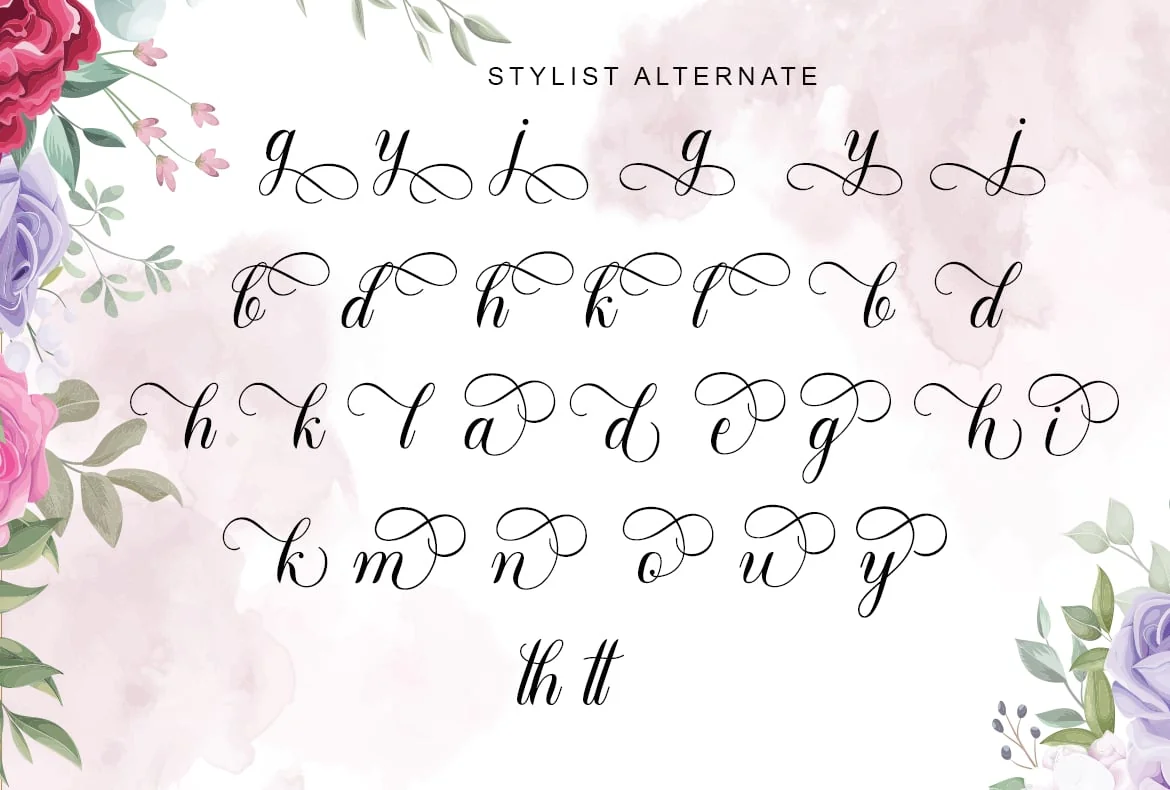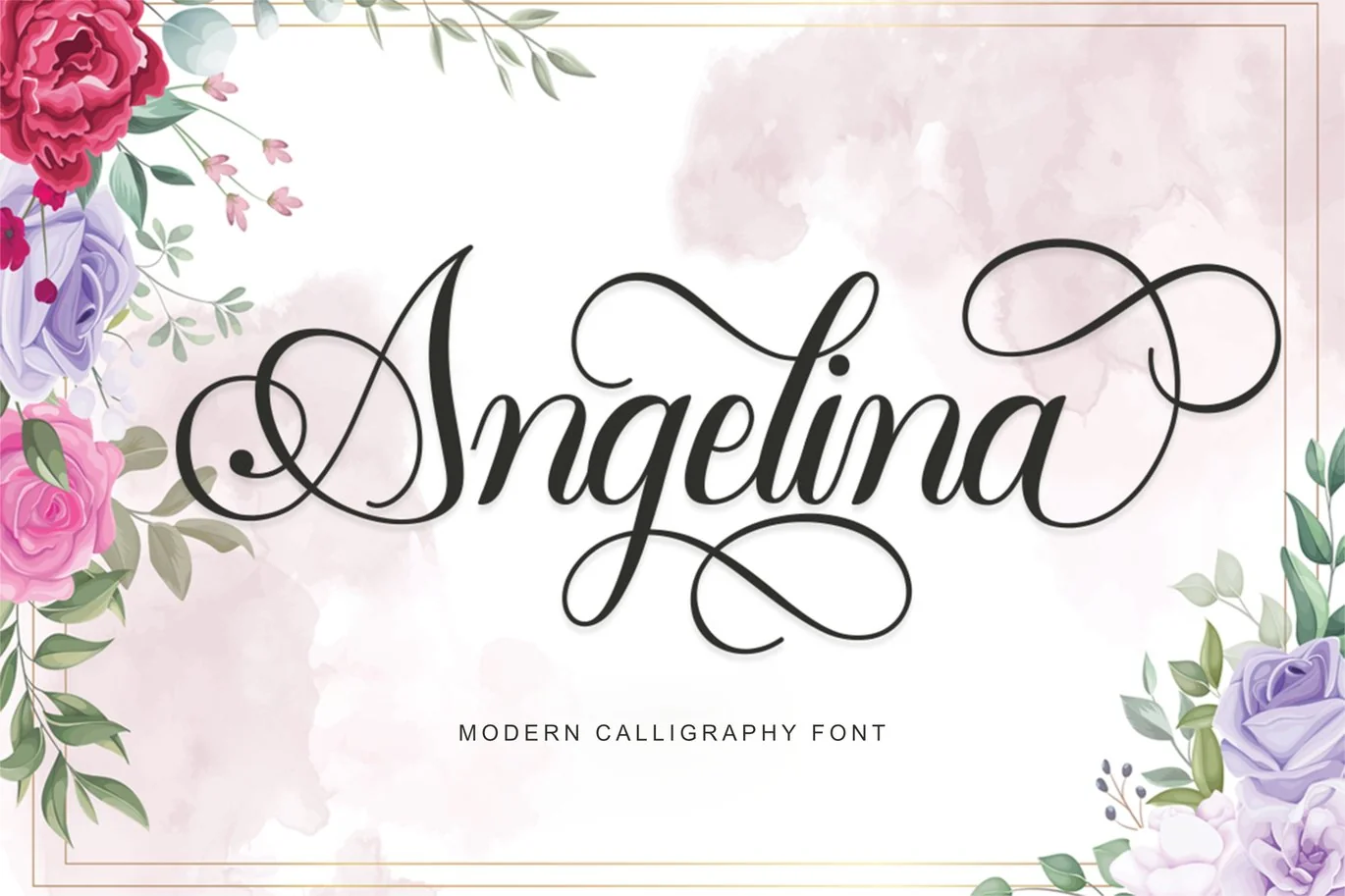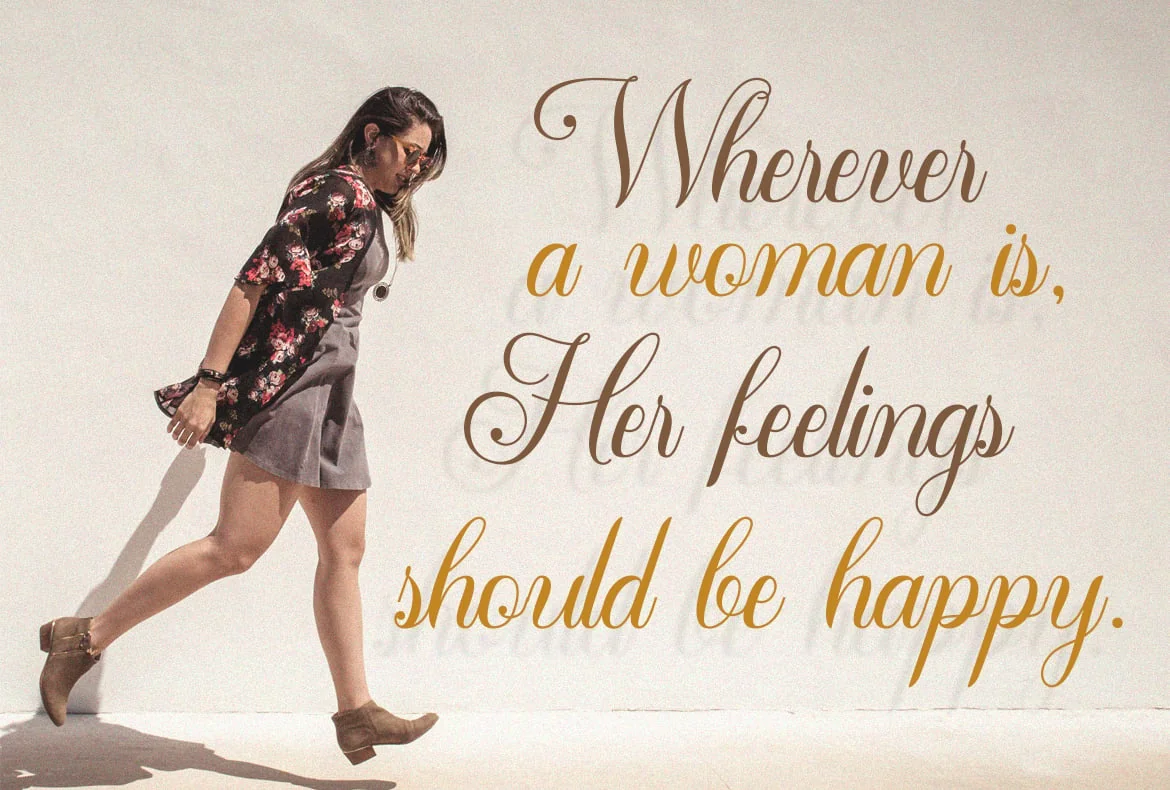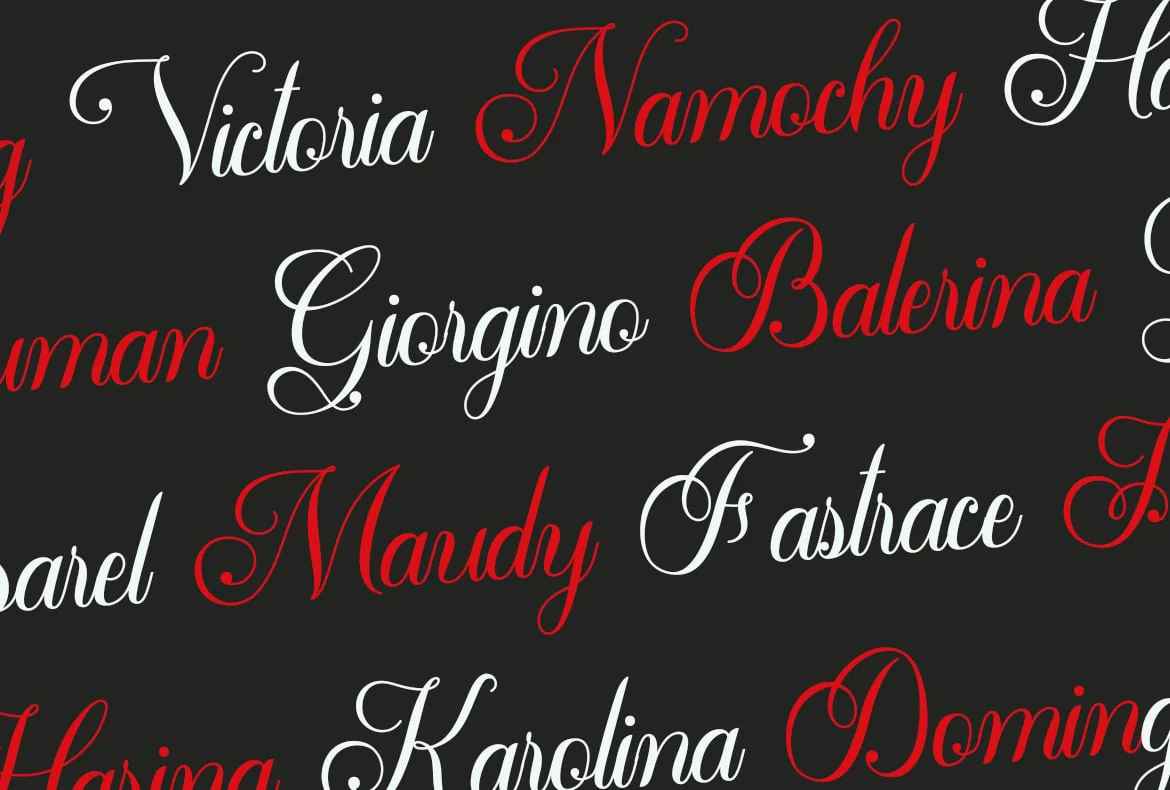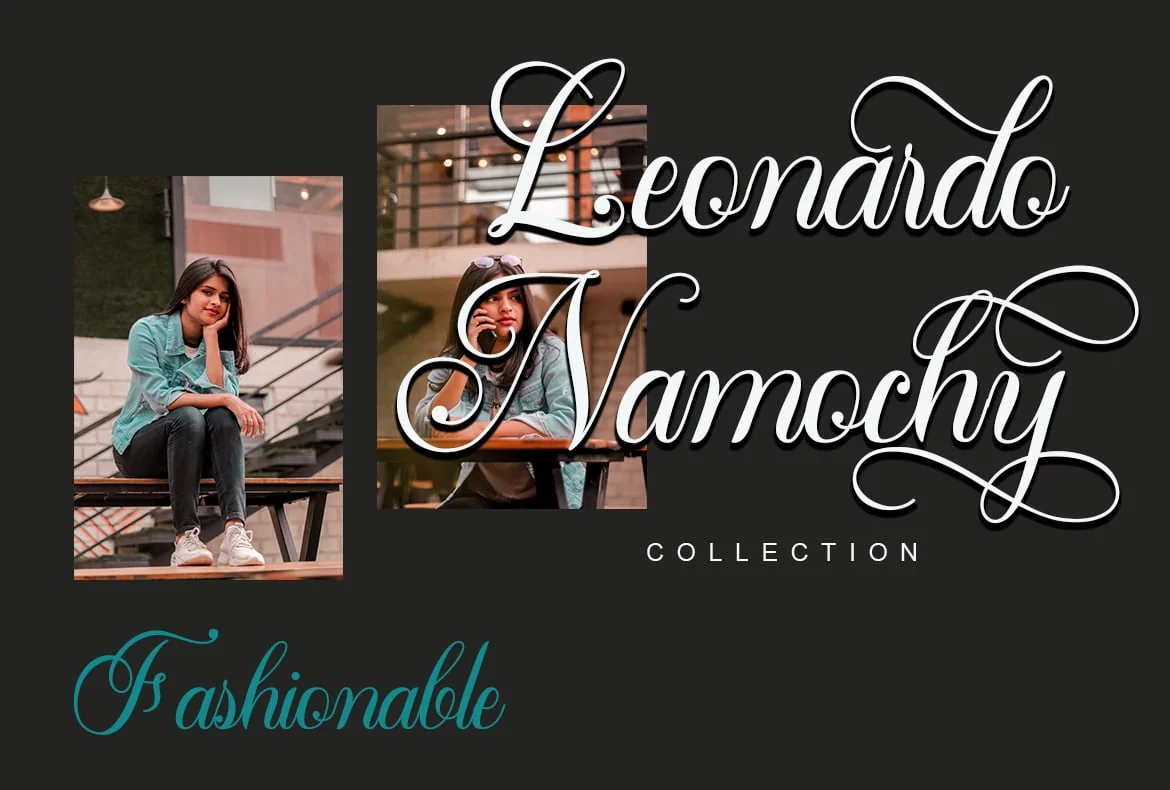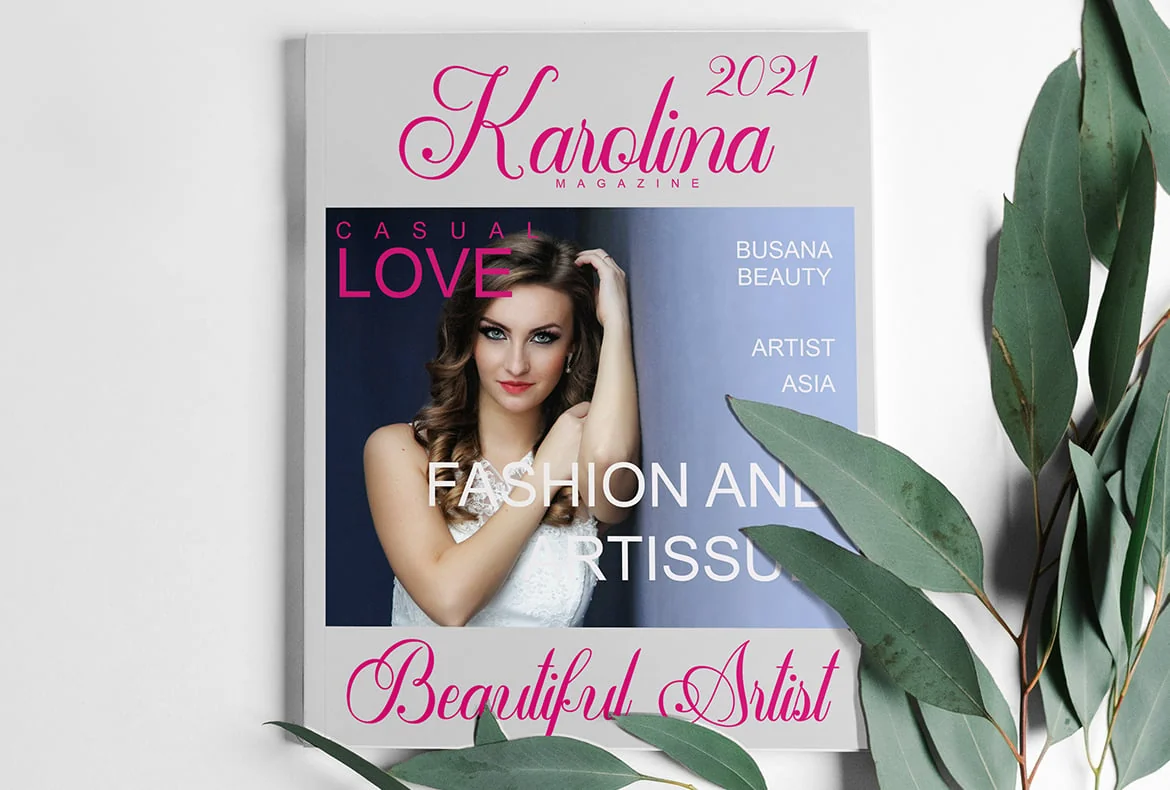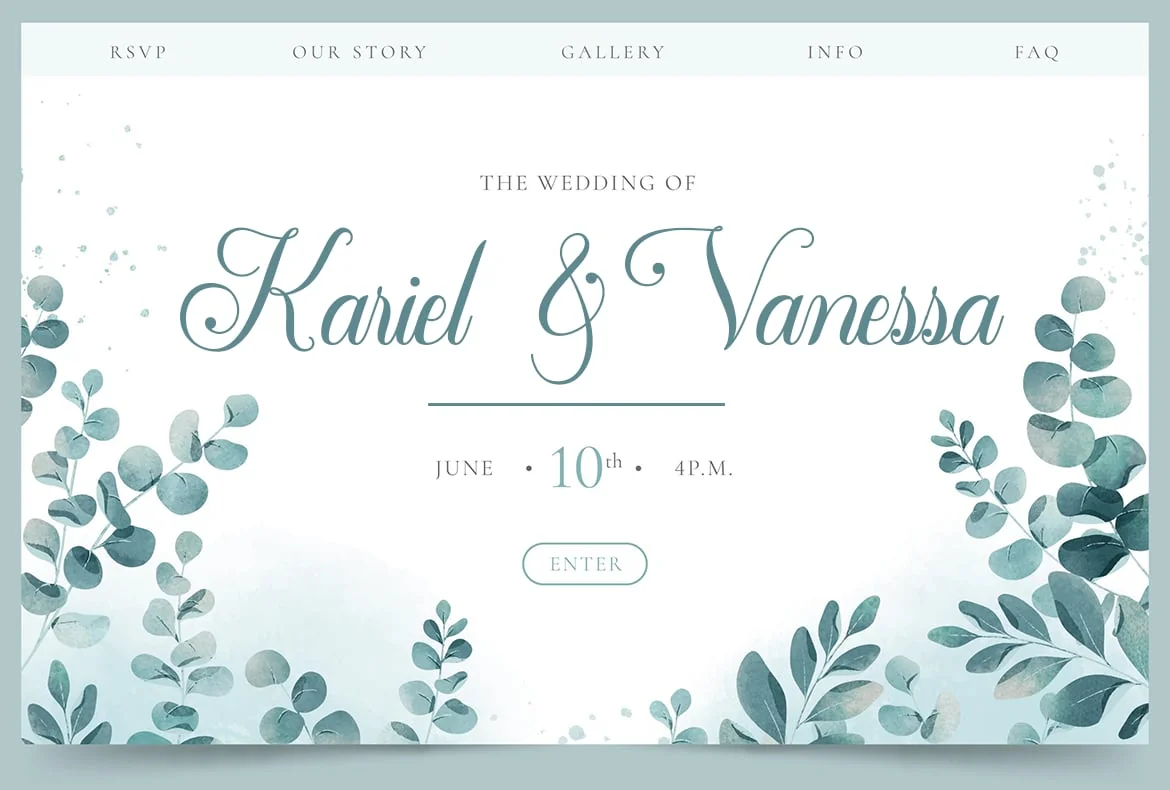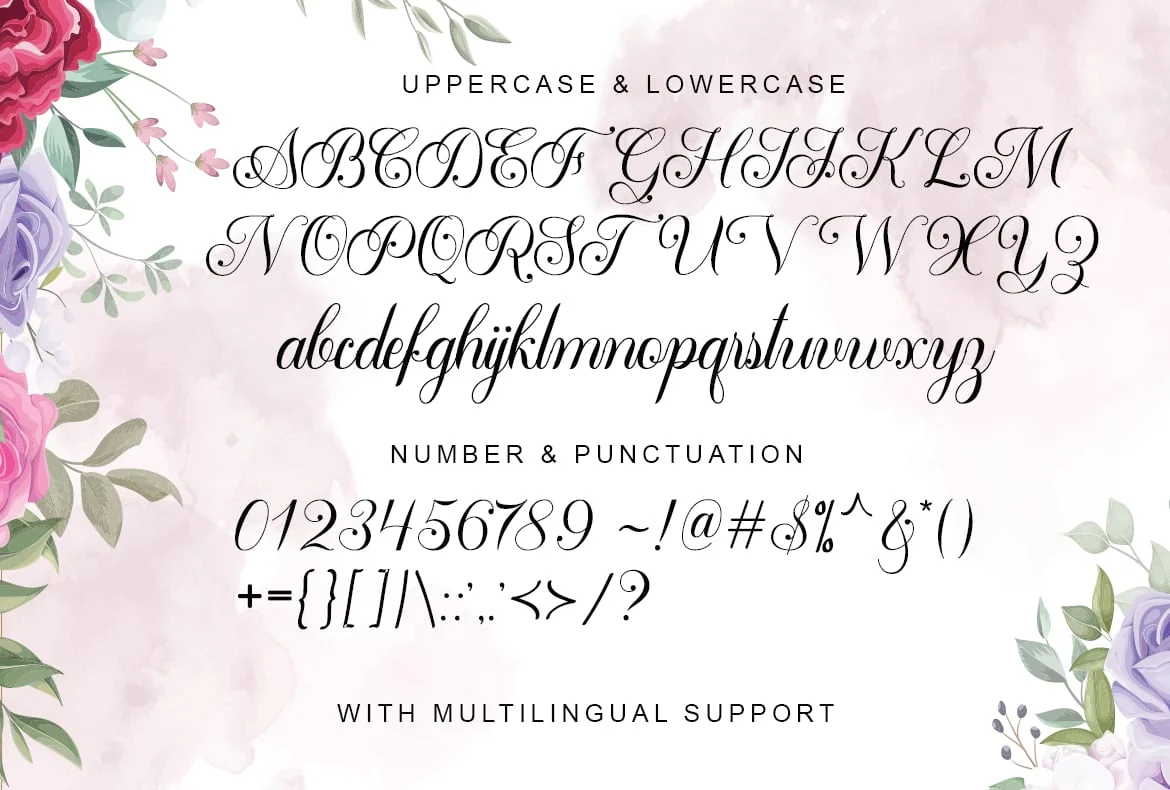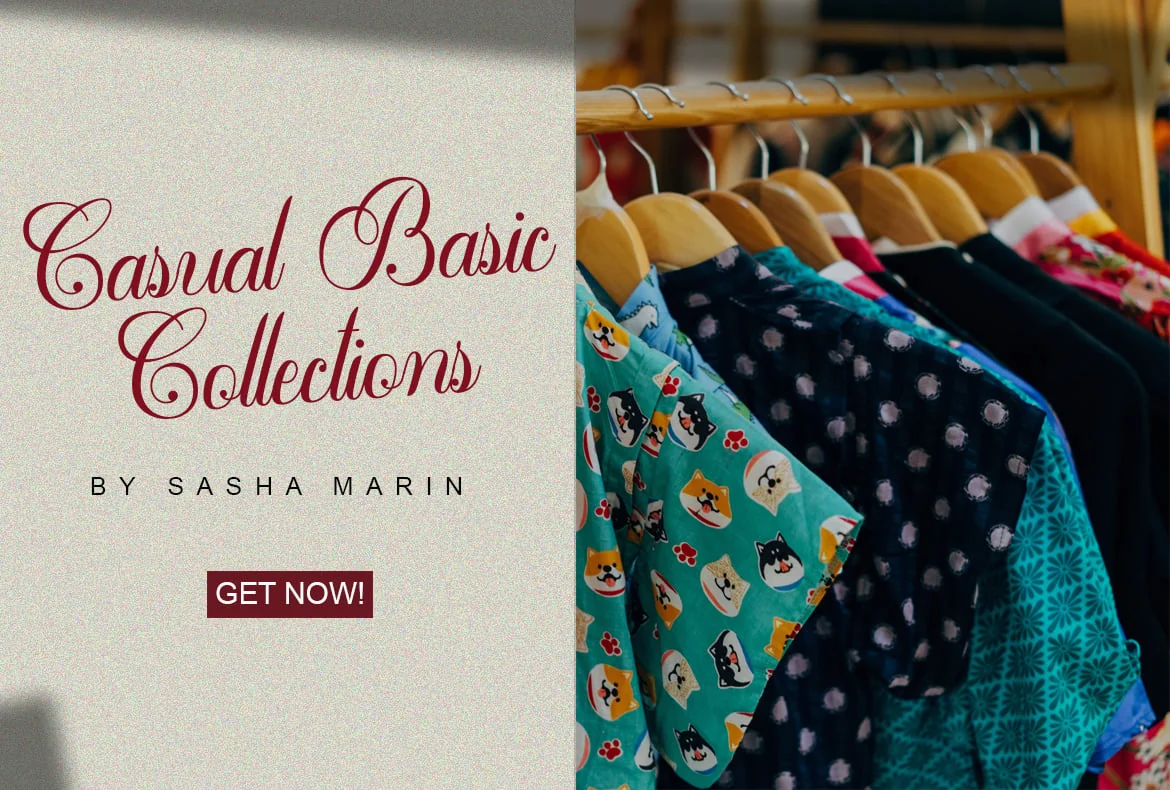
Angelina | Stylish Calligraphy Font
Angelina is a very luxurious elegant calligraphy font for your classy projects that is complemented by a pretty and stylish alternative.
This font includes alternatives, style sets, ligatures, swashes and multilingual support with the Pua encode opentype feature and in some glyphs it has a pretty stylistic alternative.
FEATURES : -Uppercase -Lowercase -Number -Punctuation -Multilingual -Stylistic Alternate -PUA Encode -Opentype